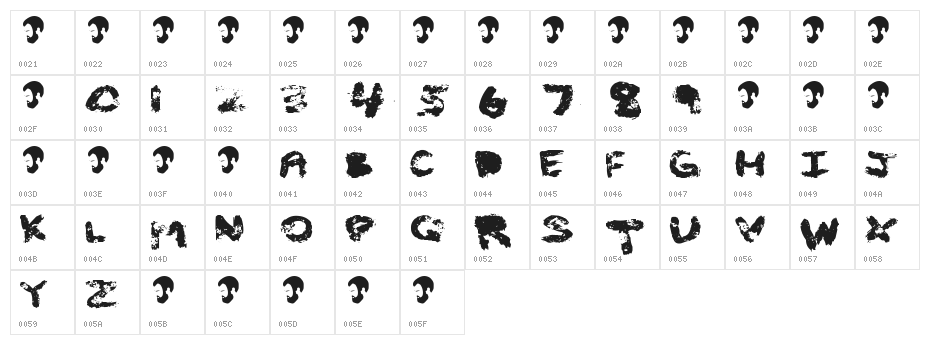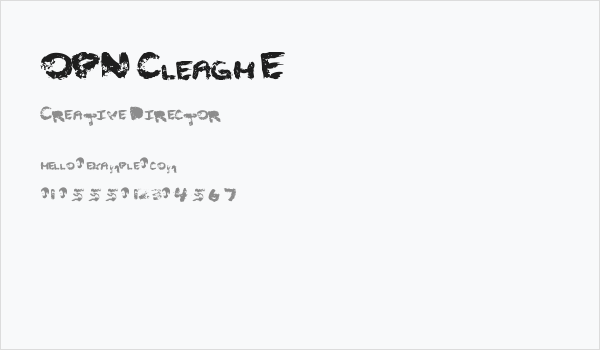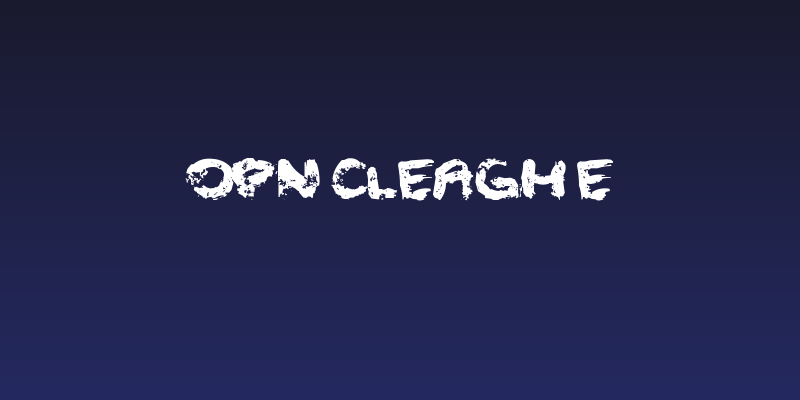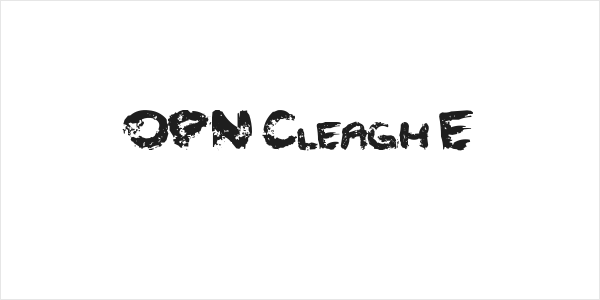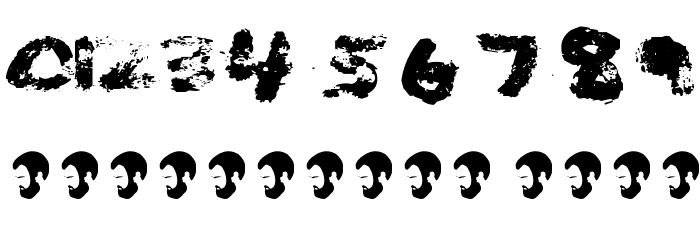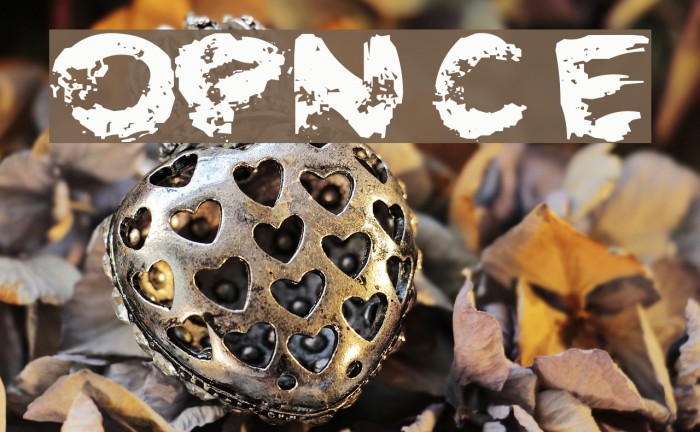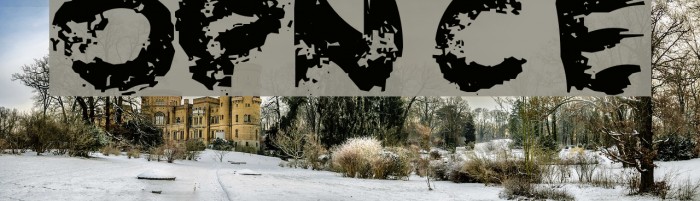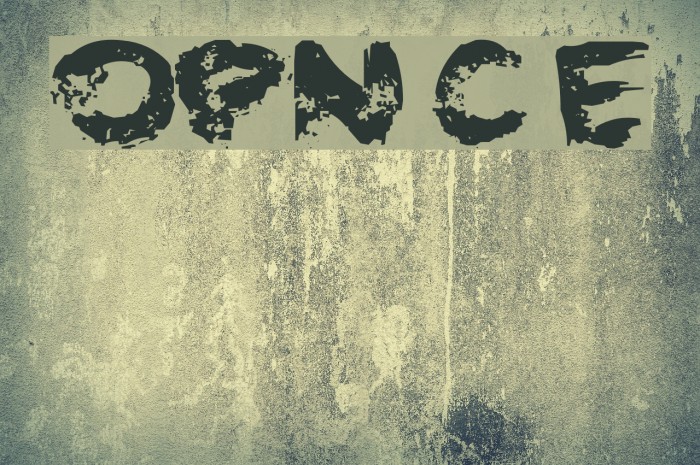
OPN Cleagh E Font
OPN Cleagh E Description
This font features a distressed, grunge style with a textured appearance that mimics the look of worn or eroded surfaces. The characters are bold and irregular, with uneven edges and a rough finish that adds a sense of ruggedness and authenticity. The uppercase and lowercase letters maintain a consistent style, while the numbers and special characters follow the same distressed theme. This font is ideal for projects that require a bold, impactful look with a touch of edginess and character.
| Overall Style | Grunge, Distressed |
| Proposed Projects | Ideal for album covers, posters, urban-themed designs, and branding that requires a gritty, edgy look. |